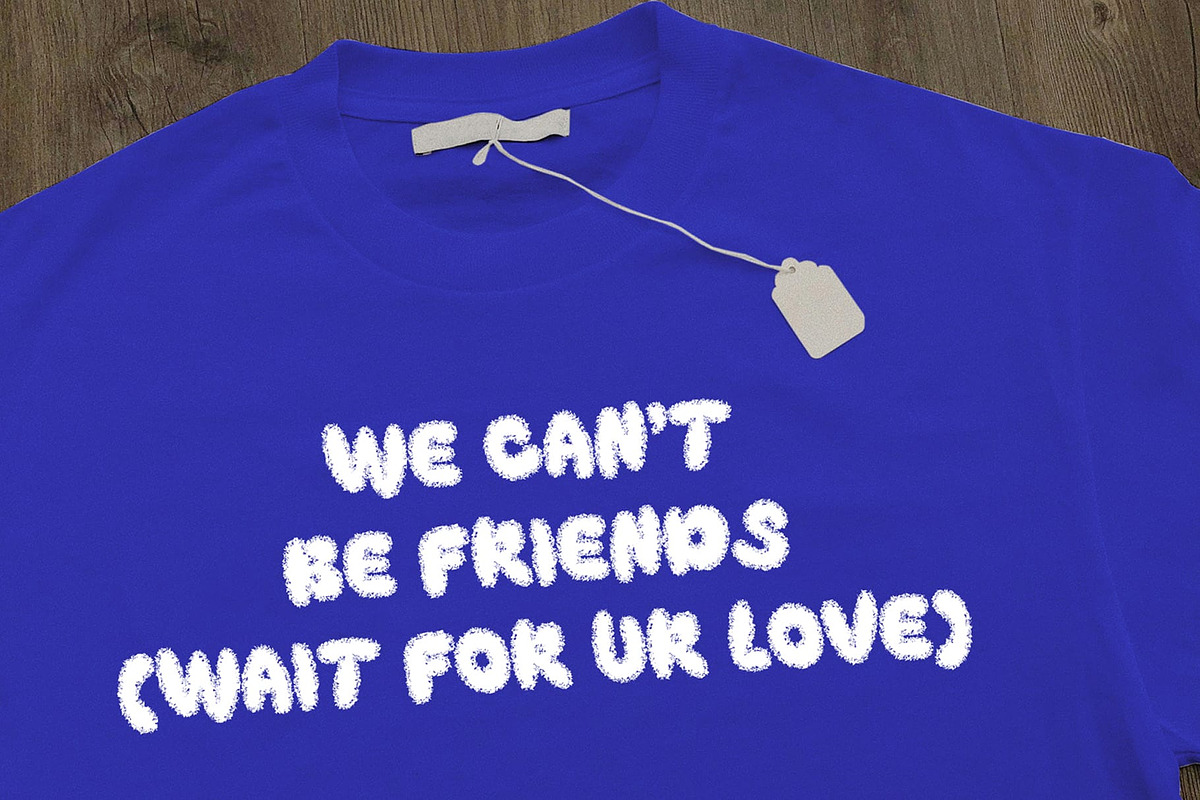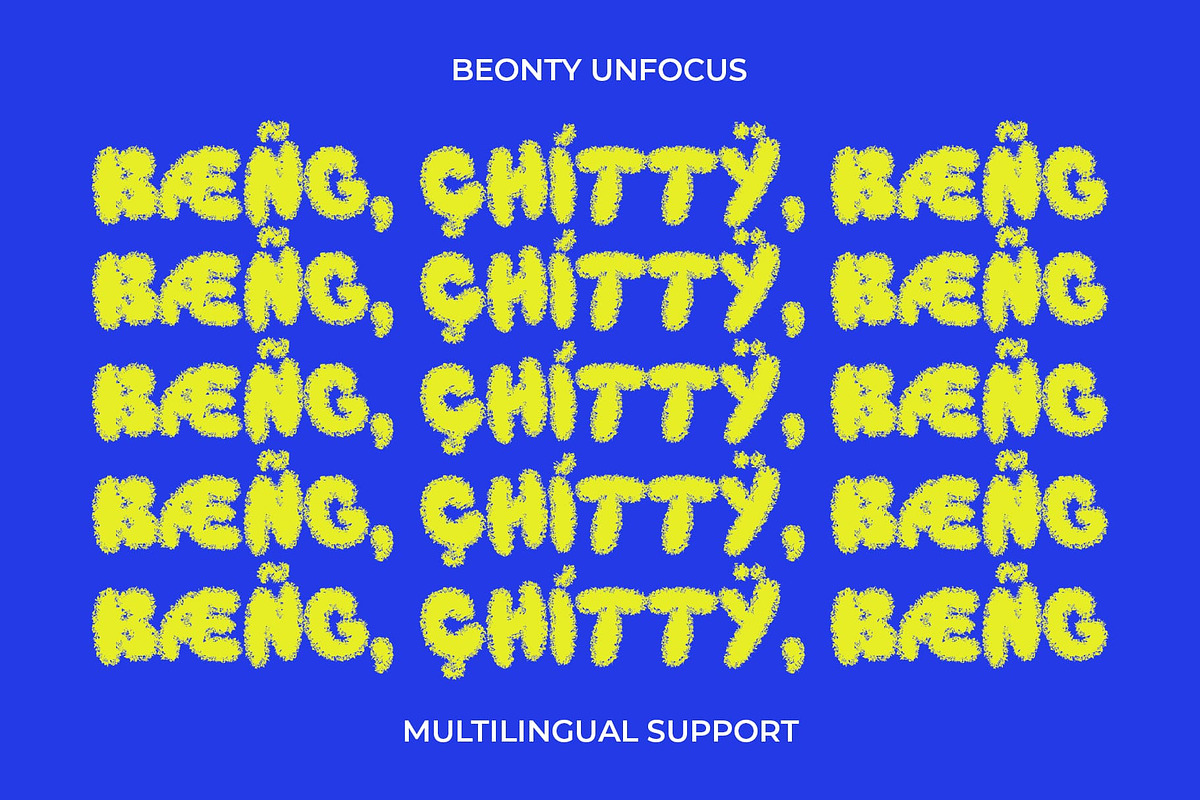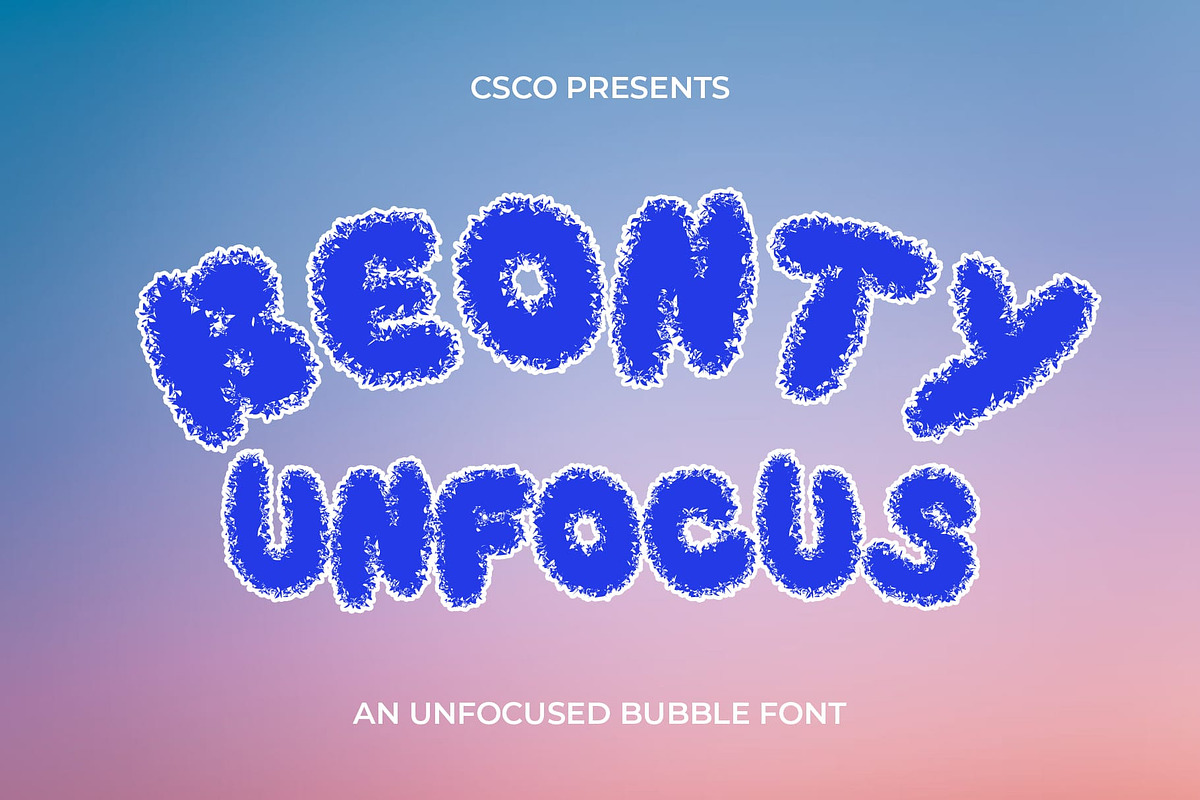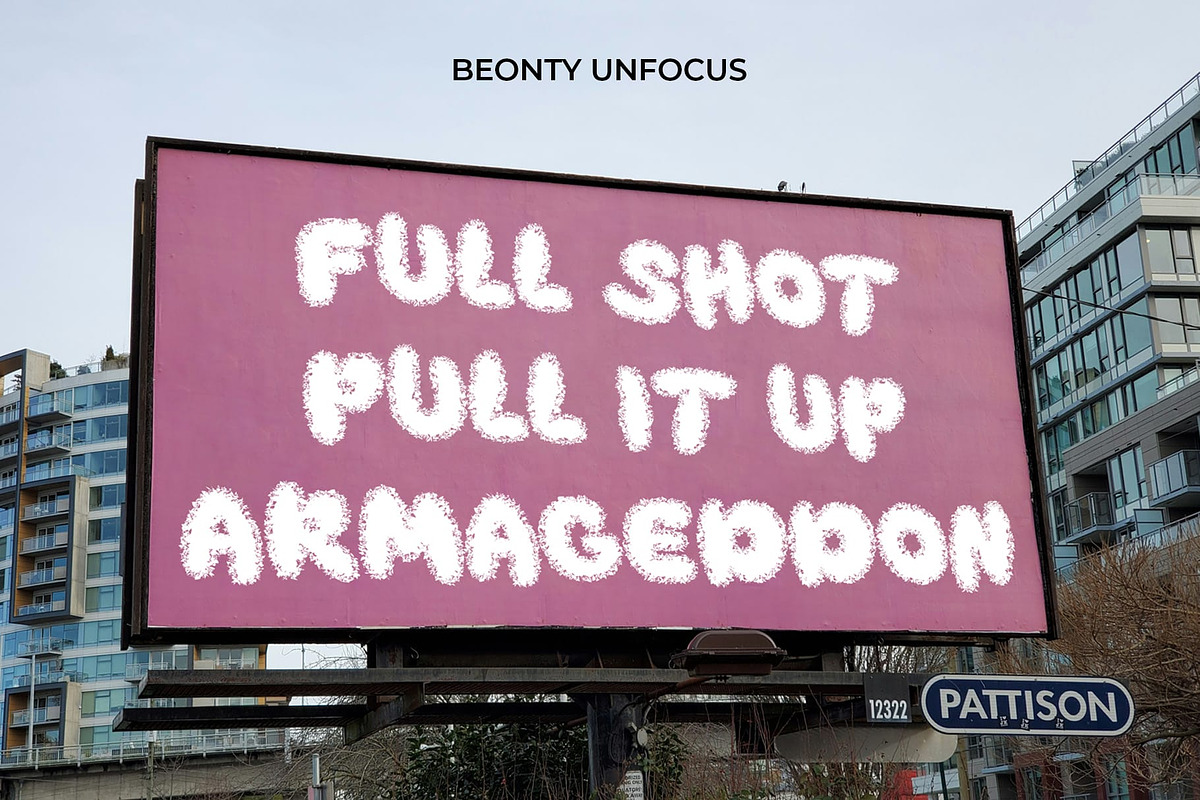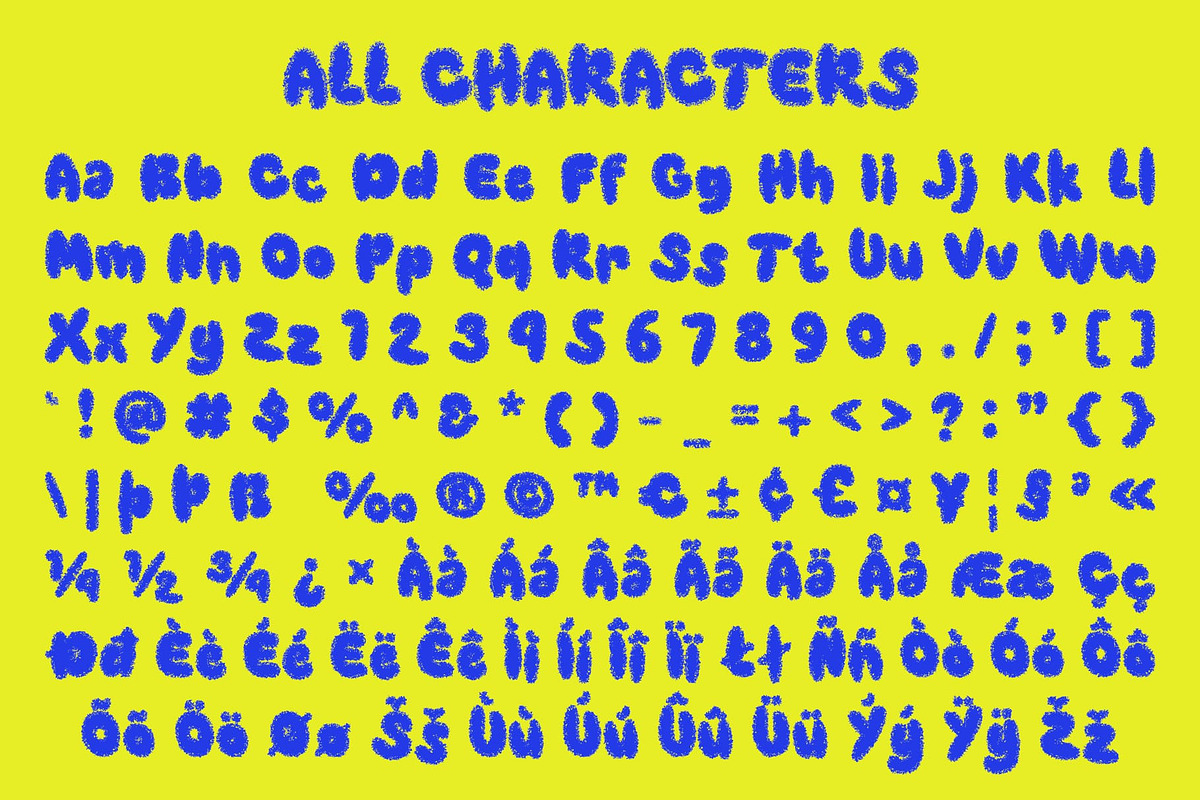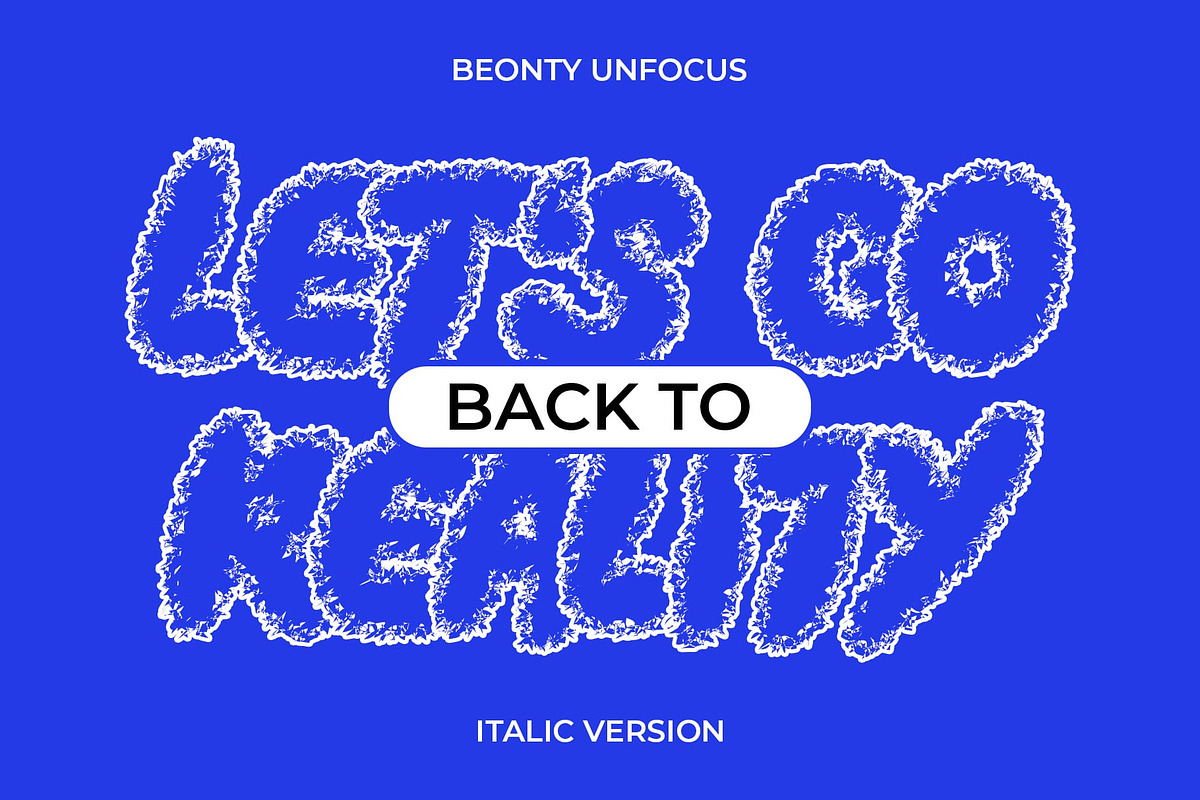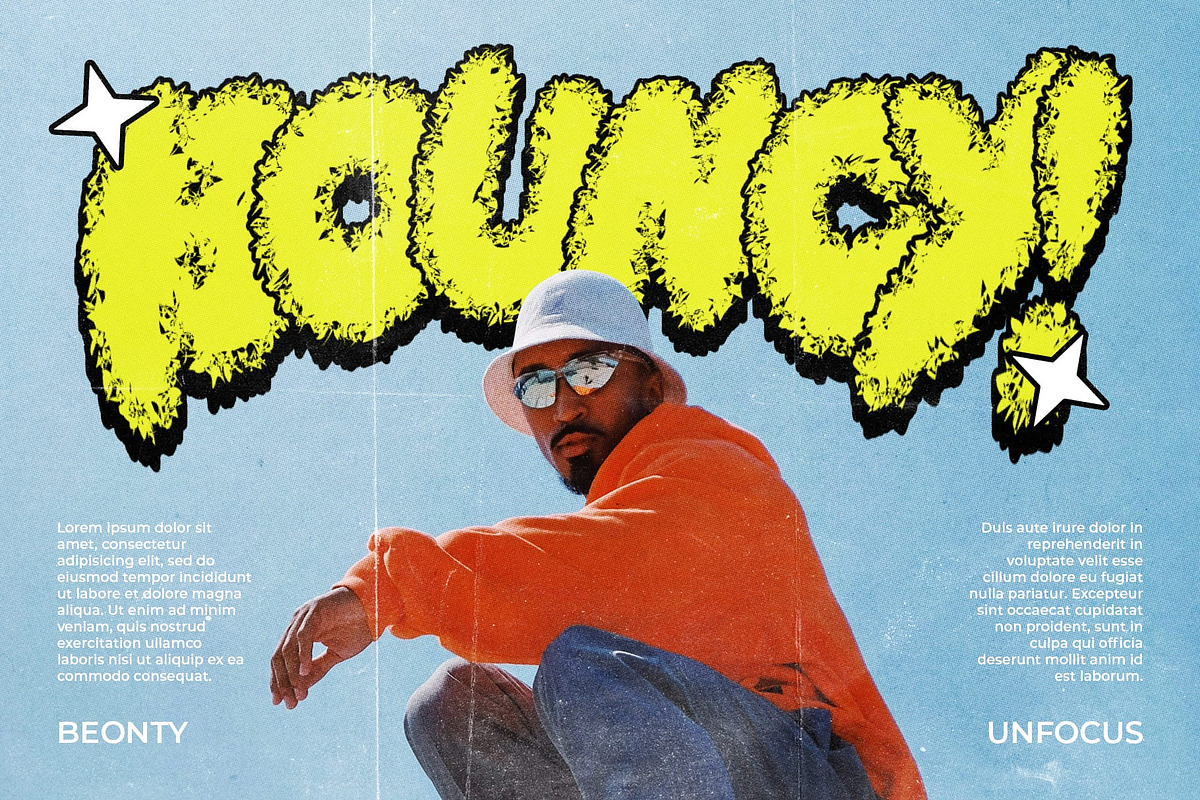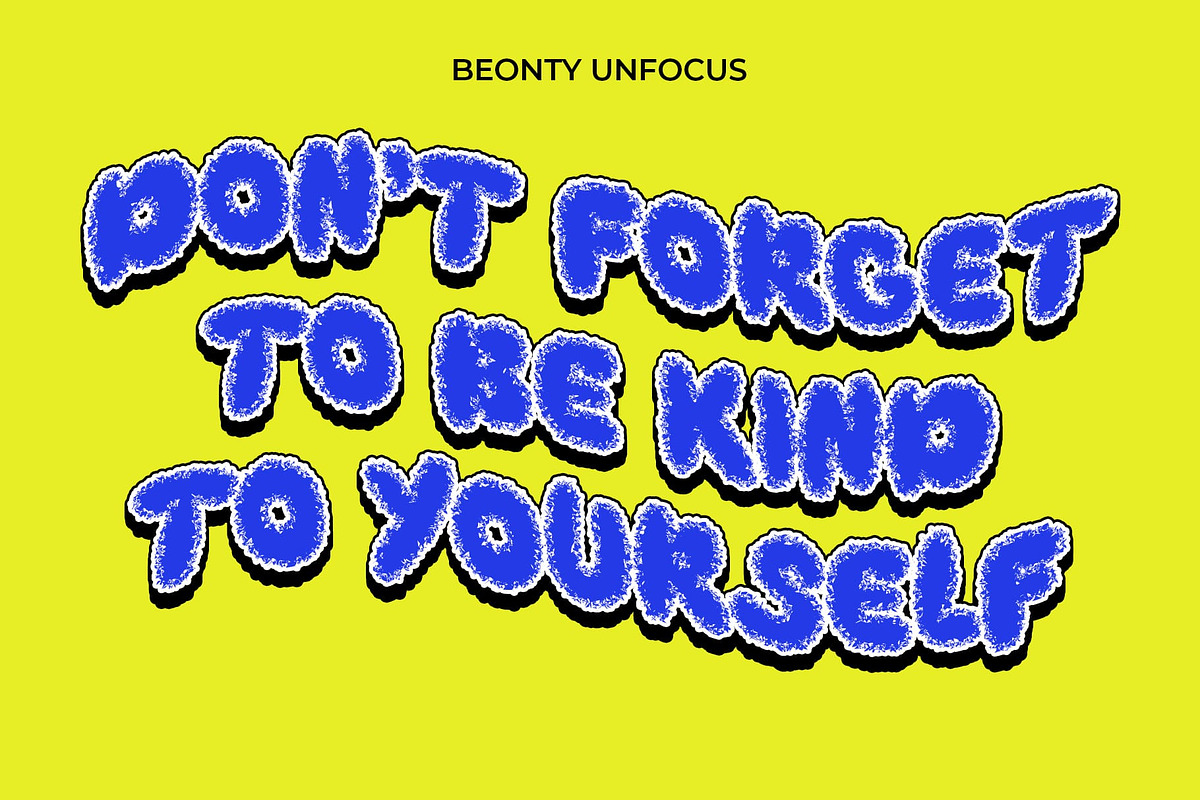
Beonty Unfocus
Beonty Unfocus: Where Boldness Meets Bubbles
Bold, Bubbly, and Cute Display Font
Beonty Unfocus is a bold, bubbly, cute, and funky display font with an unfocused style, perfect for designs aiming for a cheerful, unique, and attention-grabbing look. Its playful appearance adds a touch of whimsy, making it ideal for stickers, t-shirts, street art like murals, and more.
Versatile and Attention-Grabbing
With its versatile design, Beonty Unfocus Font is suitable for a variety of uses, including posters, packaging, and branding. Its bubbly and funky style adds a fun and friendly flair, ensuring that your designs stand out from the crowd.
Enhanced Visual Appeal
Beonty Unfocus Font prioritizes visual appeal, ensuring that your designs exude personality and charm. Whether used in print or digital media, this font adds a lively and playful element that captivates viewers.
Perfect for Cheerful and Unique Designs
Whether you’re creating stickers, designing t-shirts, or painting street art murals, Beonty Unfocus Font is the perfect choice for projects that require a cheerful, unique, and attention-grabbing look. Its bold and bubbly style ensures that your designs will always look inviting and engaging.
- Beonty Unfocus Regular
- Beonty Unfocus Italic